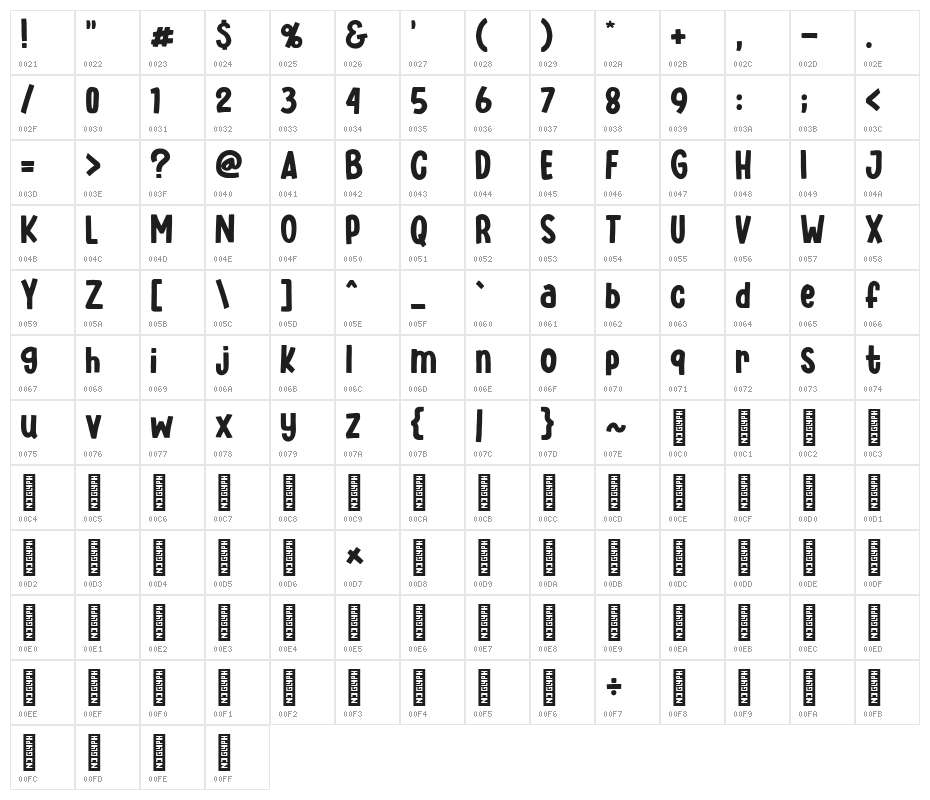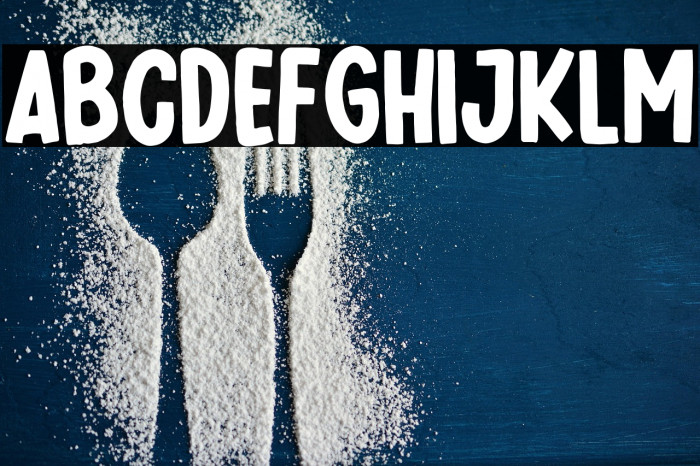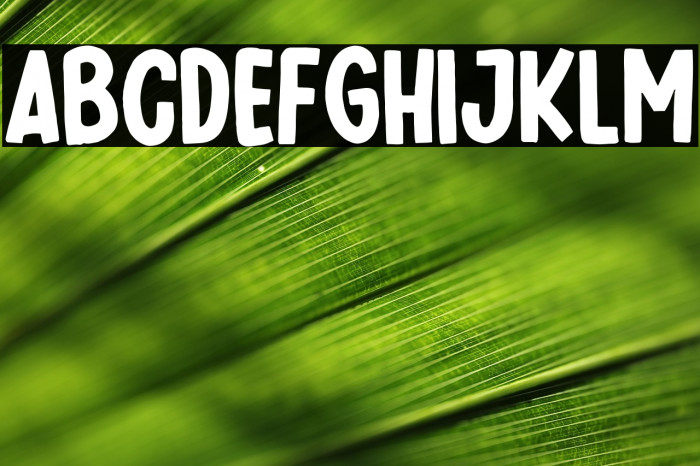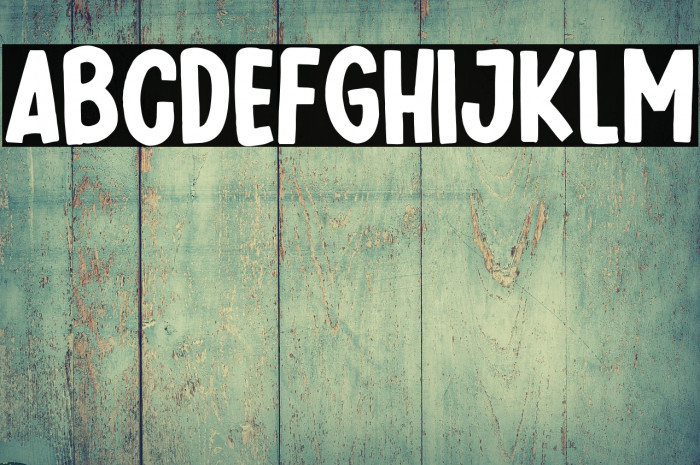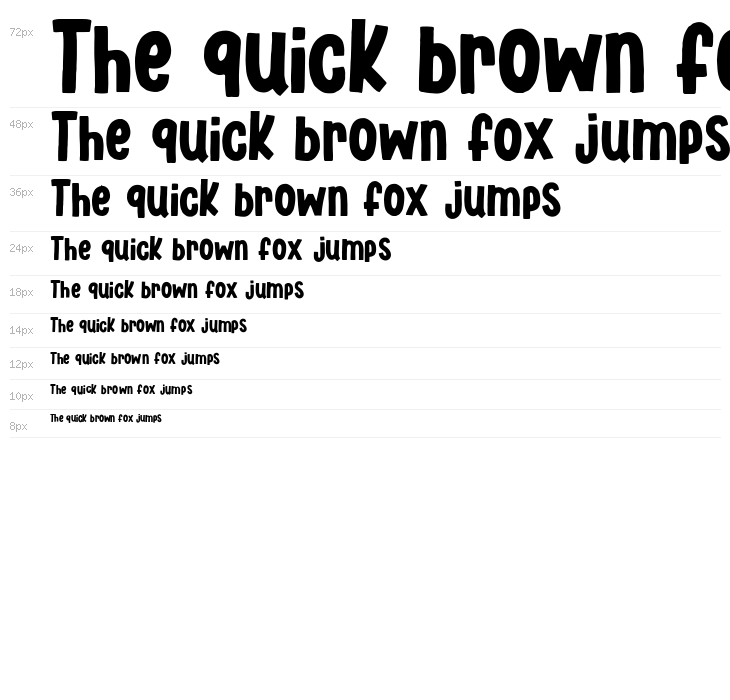
Sekate Font
Sekate Description
This font features bold, playful characters with a hand-drawn aesthetic. The letters are thick and rounded, giving a friendly and approachable feel. The uppercase and lowercase letters maintain a consistent style, with slight variations that add to the whimsical nature. Numbers and special characters follow the same bold and rounded design, ensuring uniformity across all glyphs. The overall appearance is casual and informal, making it suitable for creative and fun projects.
| Overall Style | Playful, Casual, Hand-drawn |
| Use Case | Headlines, Posters, Branding |
| Proposed Projects | Ideal for children's books, playful branding, posters, and social media graphics. |